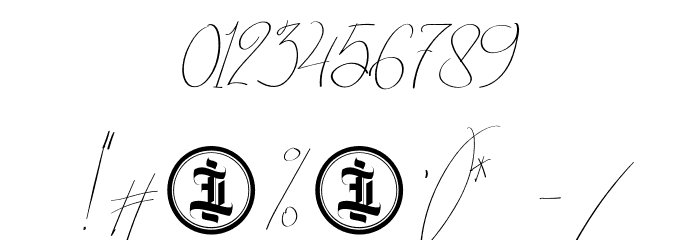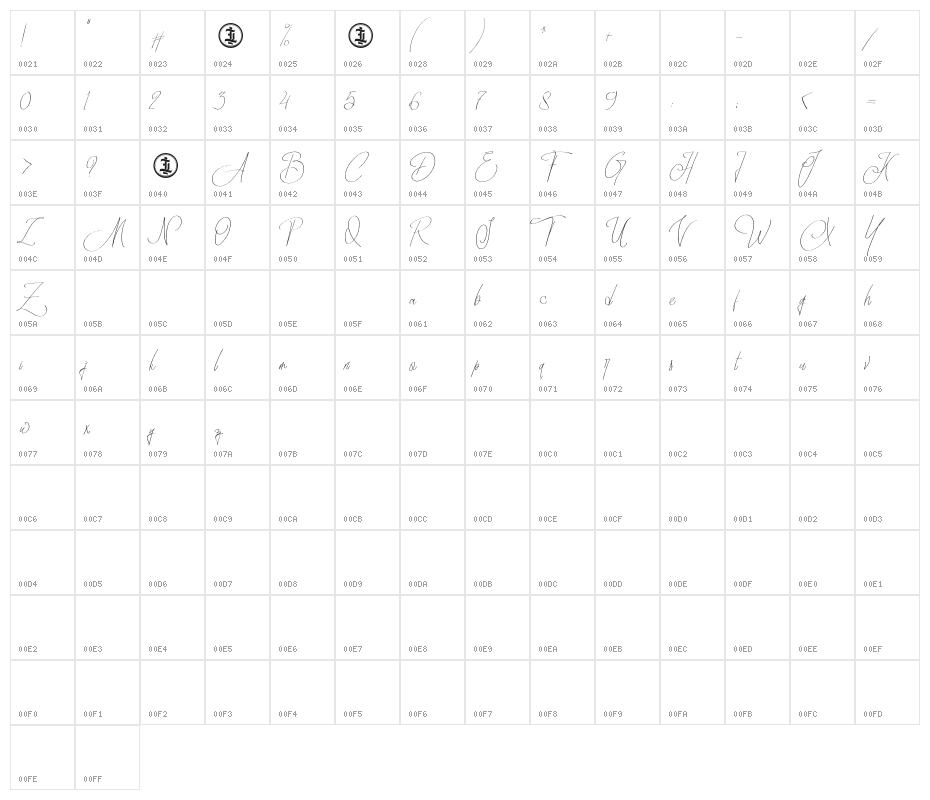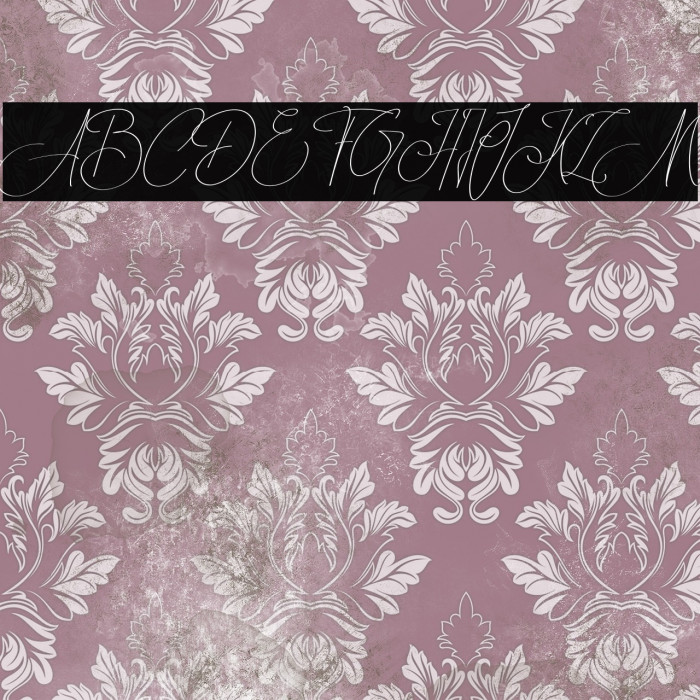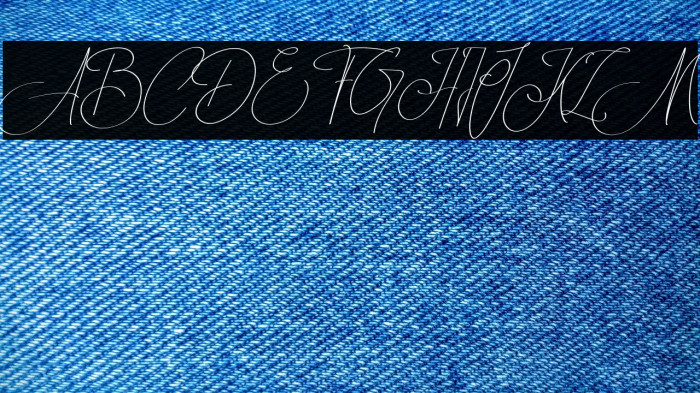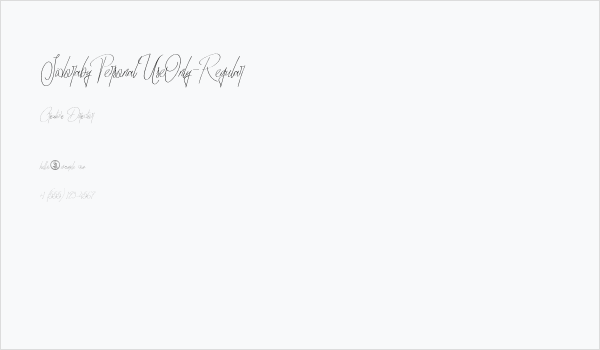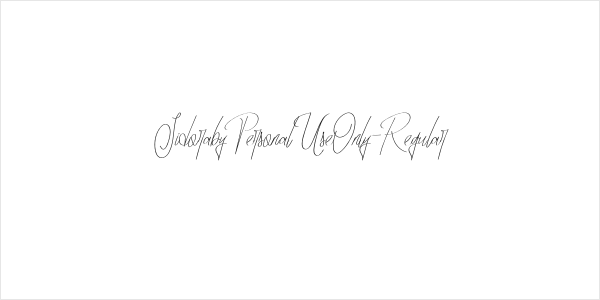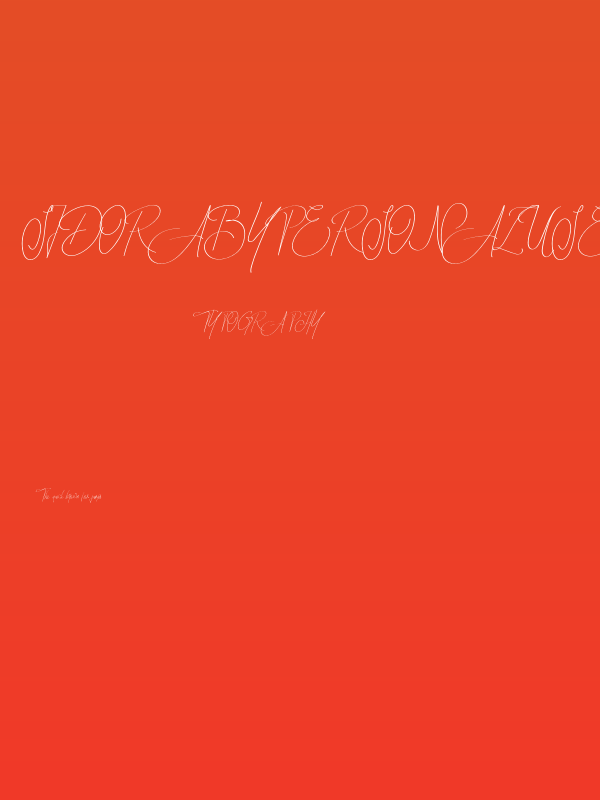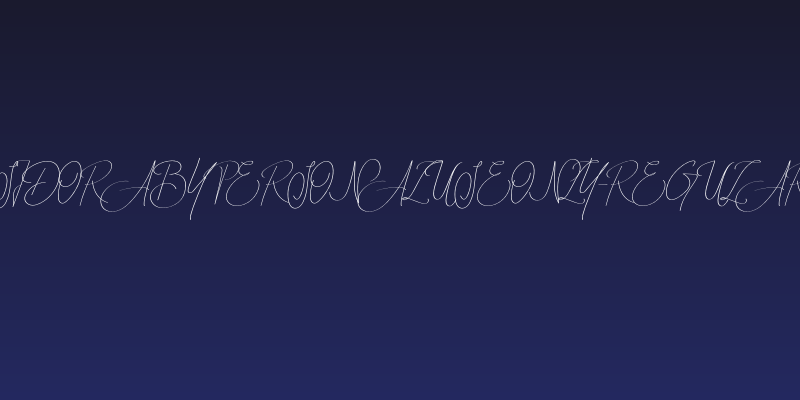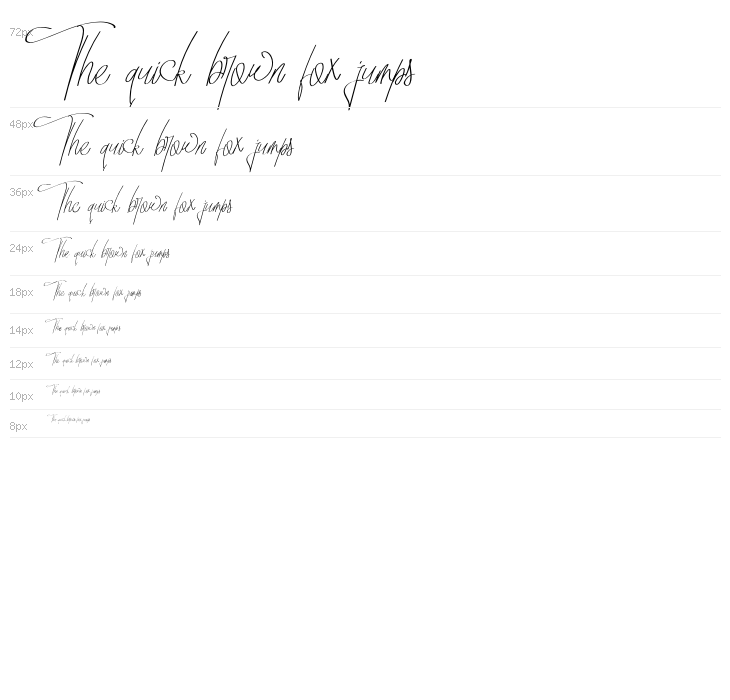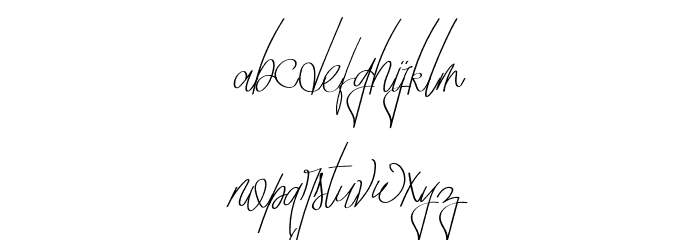
SidorabyPersonalUseOnly-Regular Font
SidorabyPersonalUseOnly-Regular Description
This font features an elegant and flowing script style, characterized by its delicate and intricate letterforms. The uppercase letters exhibit a graceful, sweeping motion with extended ascenders and descenders, creating a sense of fluidity and movement. The lowercase letters maintain this fluidity, with a slightly more compact form, yet still retaining the overall elegance. The numerals are consistent with the script style, offering a cohesive look across all characters. Special characters are thoughtfully integrated, maintaining the font's sophisticated aesthetic. This font is ideal for projects that require a touch of elegance and sophistication.